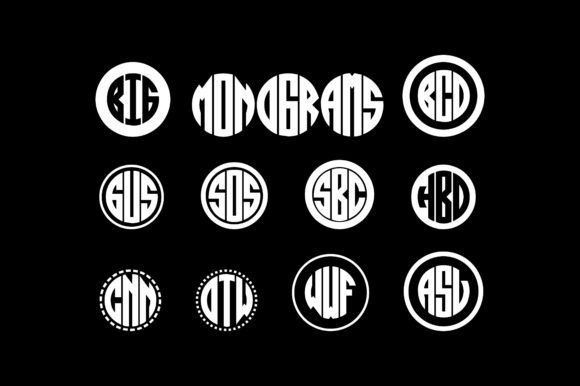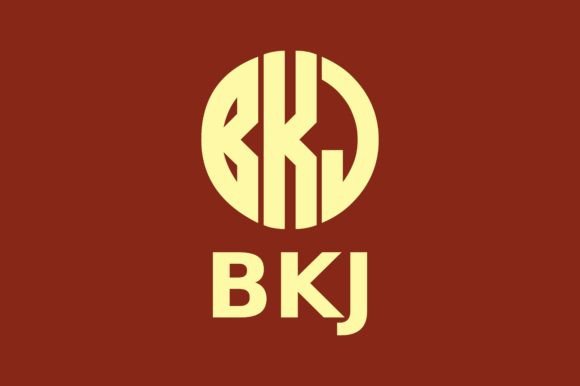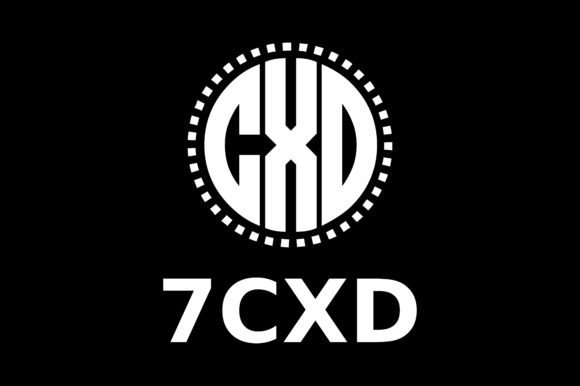
Introduction to Circle Monogram Font
Circle Monogram is a unique and charming display font.
Its style and distinctive way of writing three-word calligraphy will bring the best to any project idea This font is PUA encoded which means you can access all of the amazing glyphs and ligatures with ease.
Key Features of Circle Monogram Font